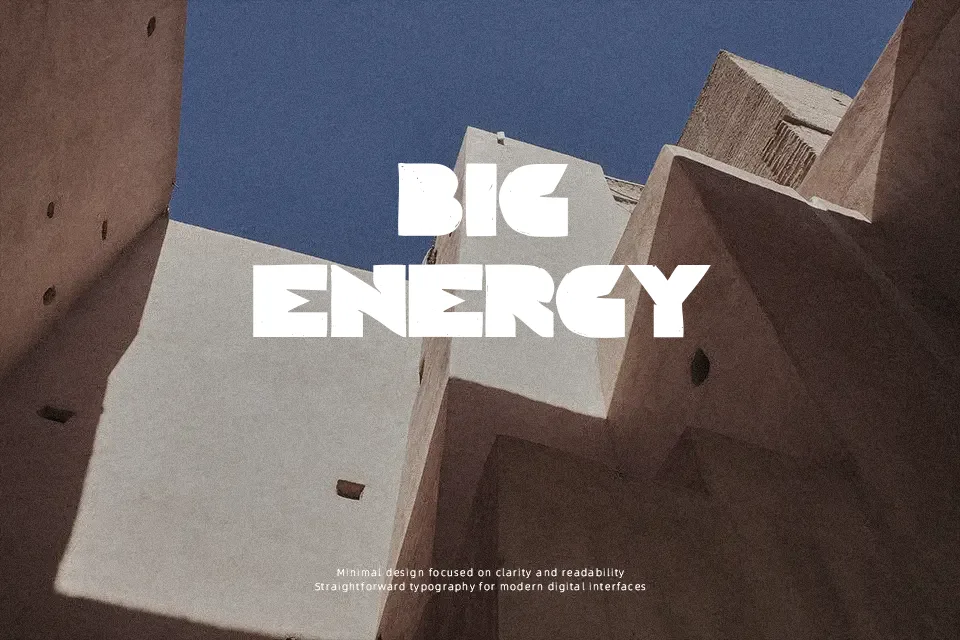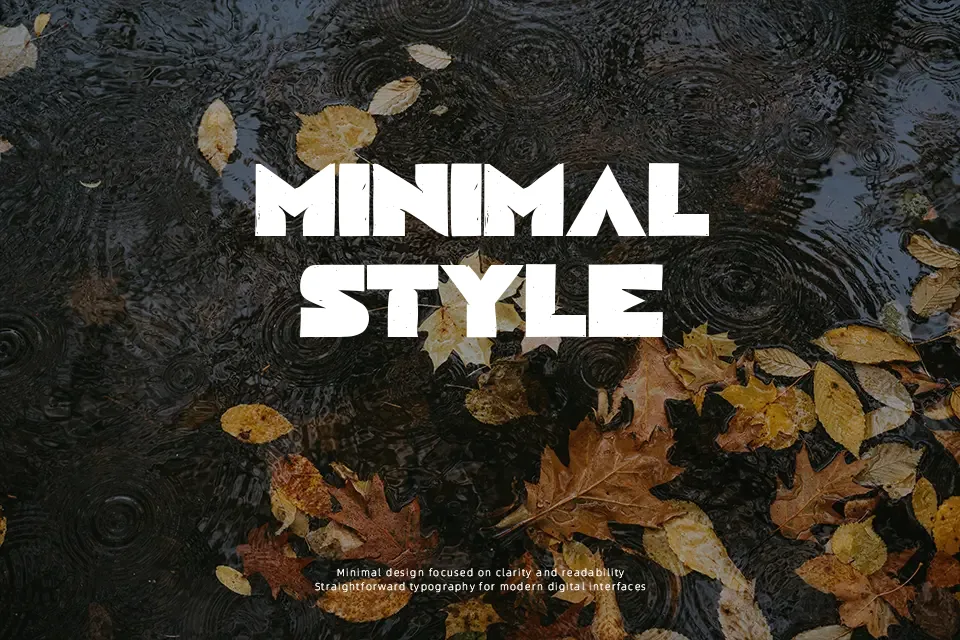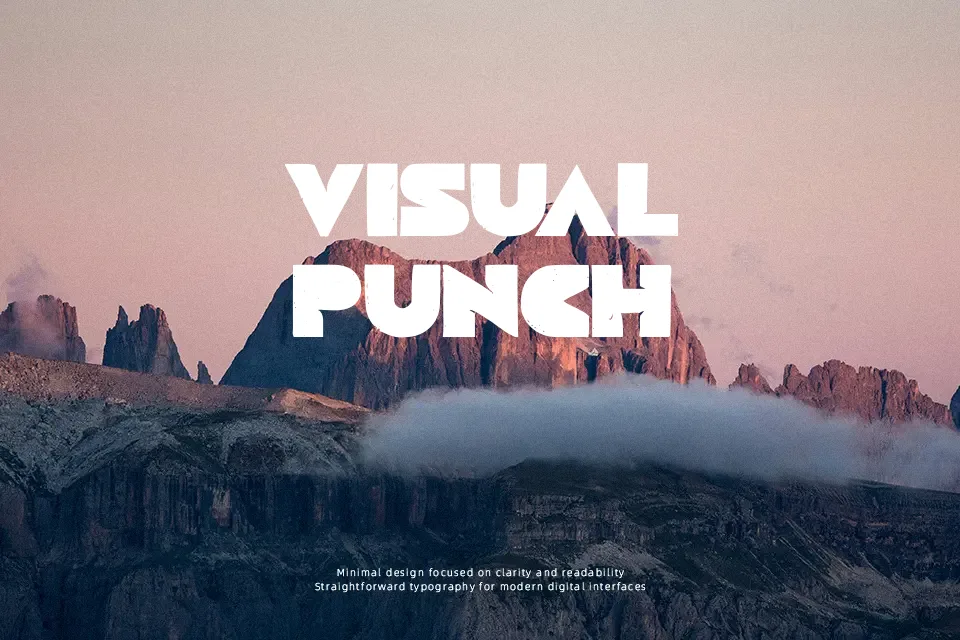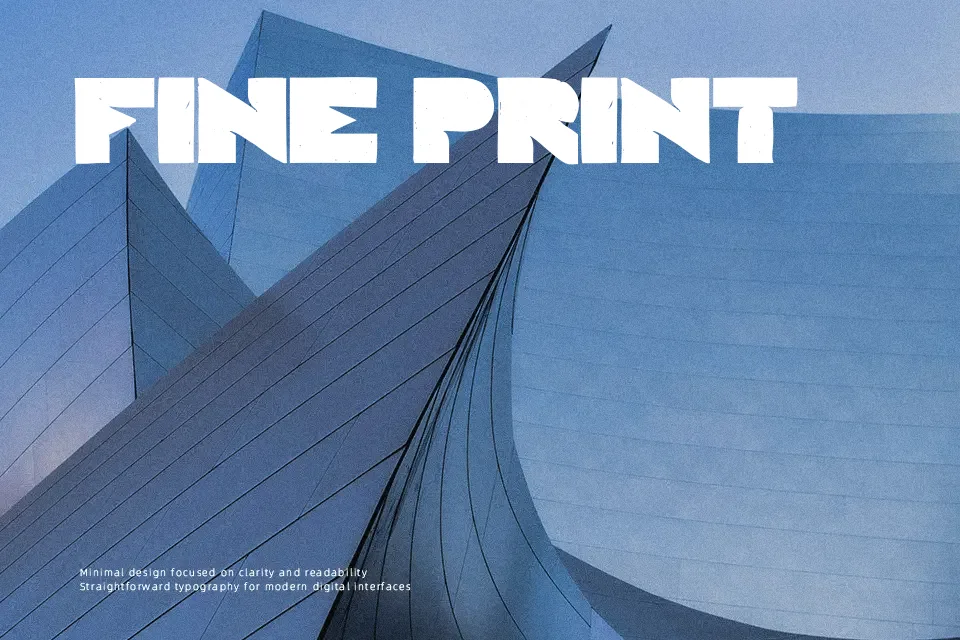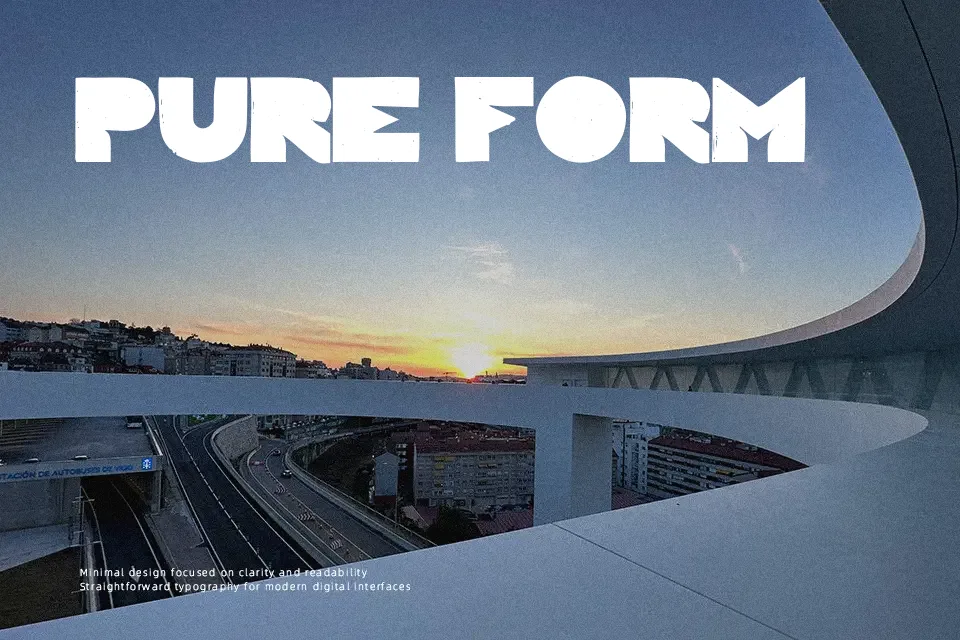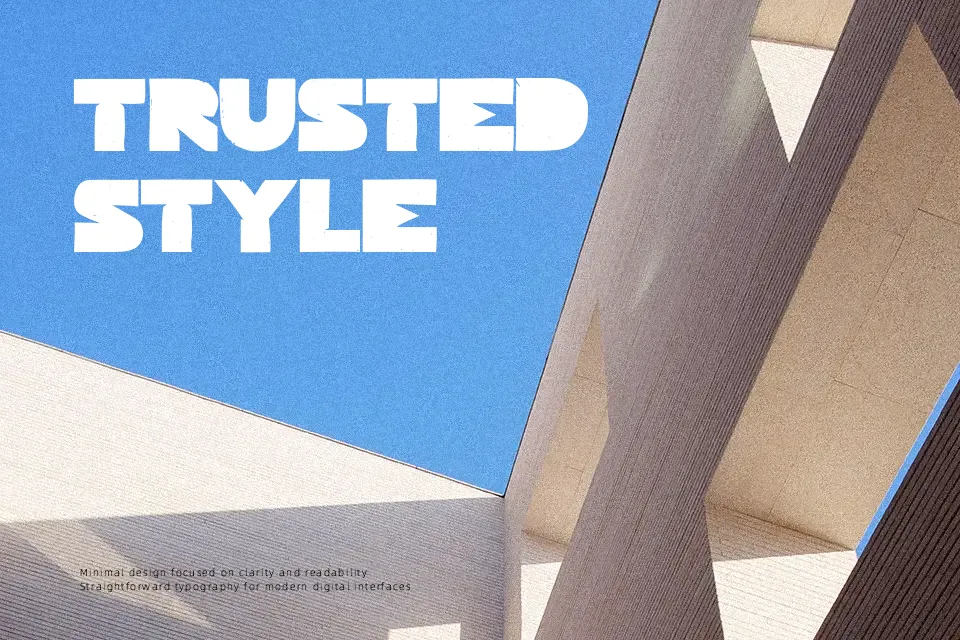
The Ink Prophecy Font
The Ink Prophecy Font commands immediate attention through bold, gestural letterforms characterized by moderate stroke contrast and energetic terminals. Balanced character spacing and distinct uppercase silhouettes ensure names and short titles remain crisp in large display formats. Because intricate stroke details and heavier visual weight can crowd dense compositions, the typeface is less effective for long continuous reading. In practical editorial work, the design excels as a focal display element on posters, apparel prints, and package headers where dramatic personality takes priority over utilitarian text setting.
Best For: music festival posters,apparel graphic prints,video game titles,craft beverage packaging
Not Ideal For: dense editorial paragraphs,mobile application interface labels,technical documentation tables,corporate legal agreements
Perfect for branding, gaming, and headline, with a artistic and decorative style.